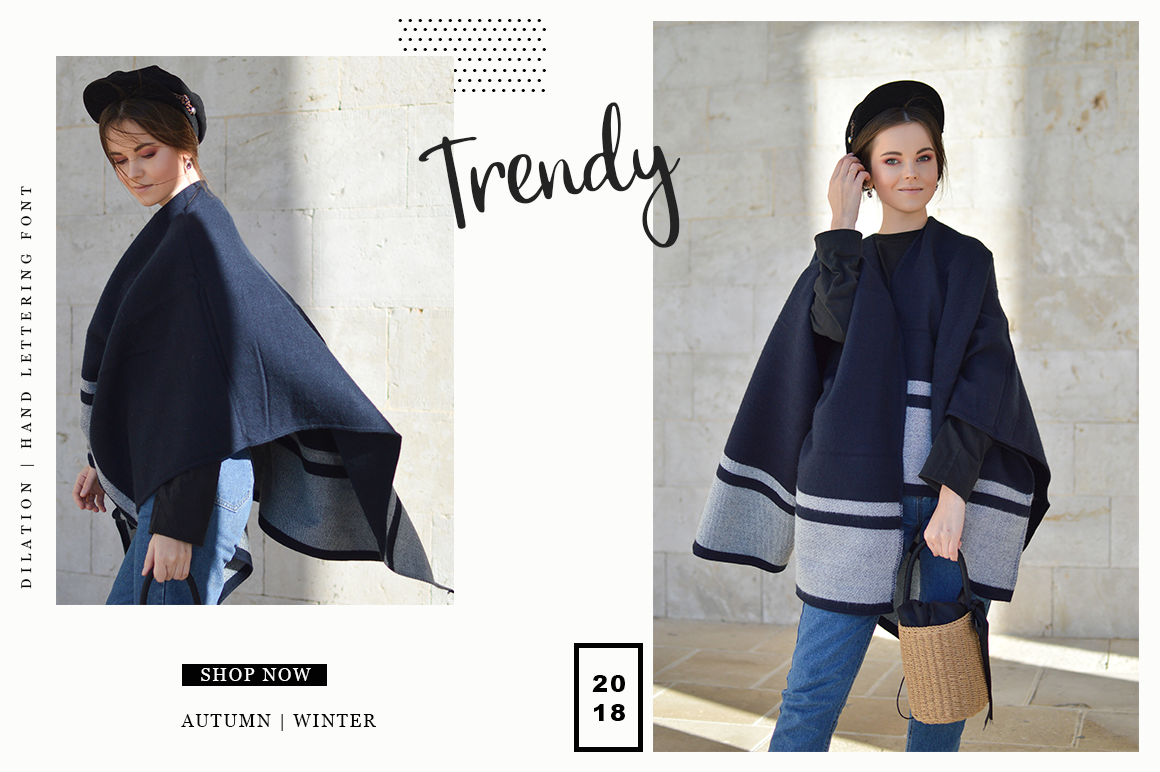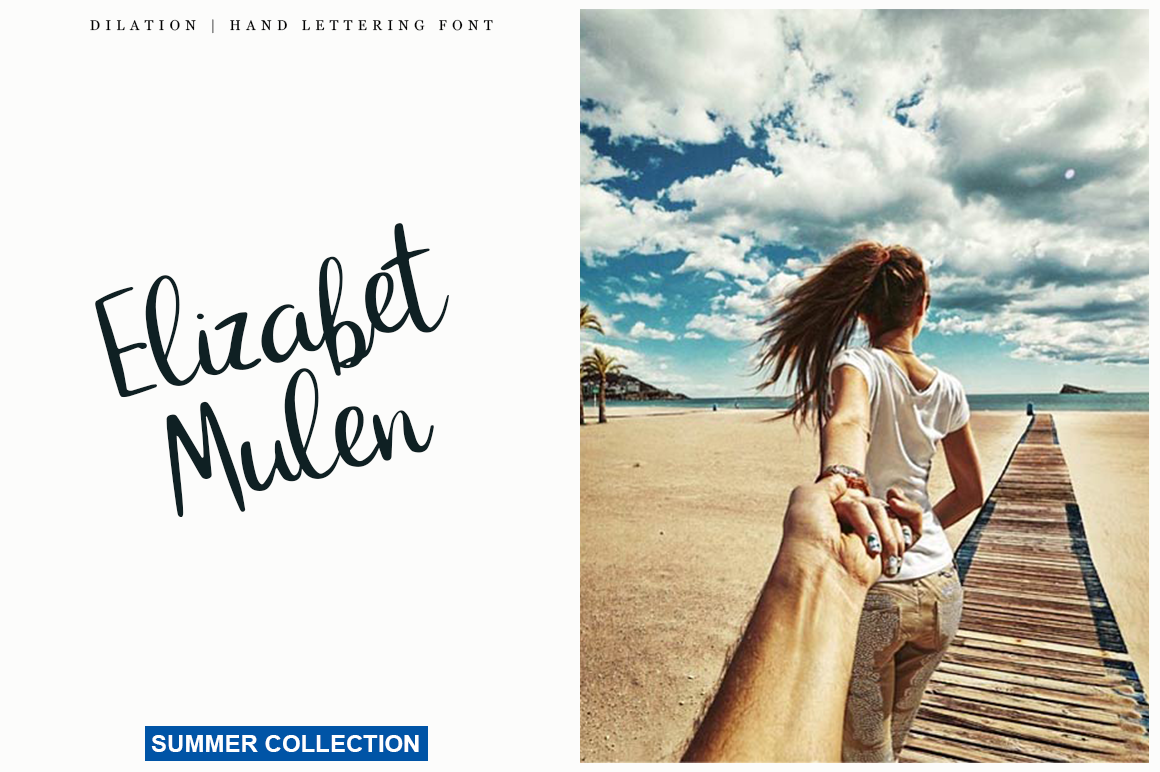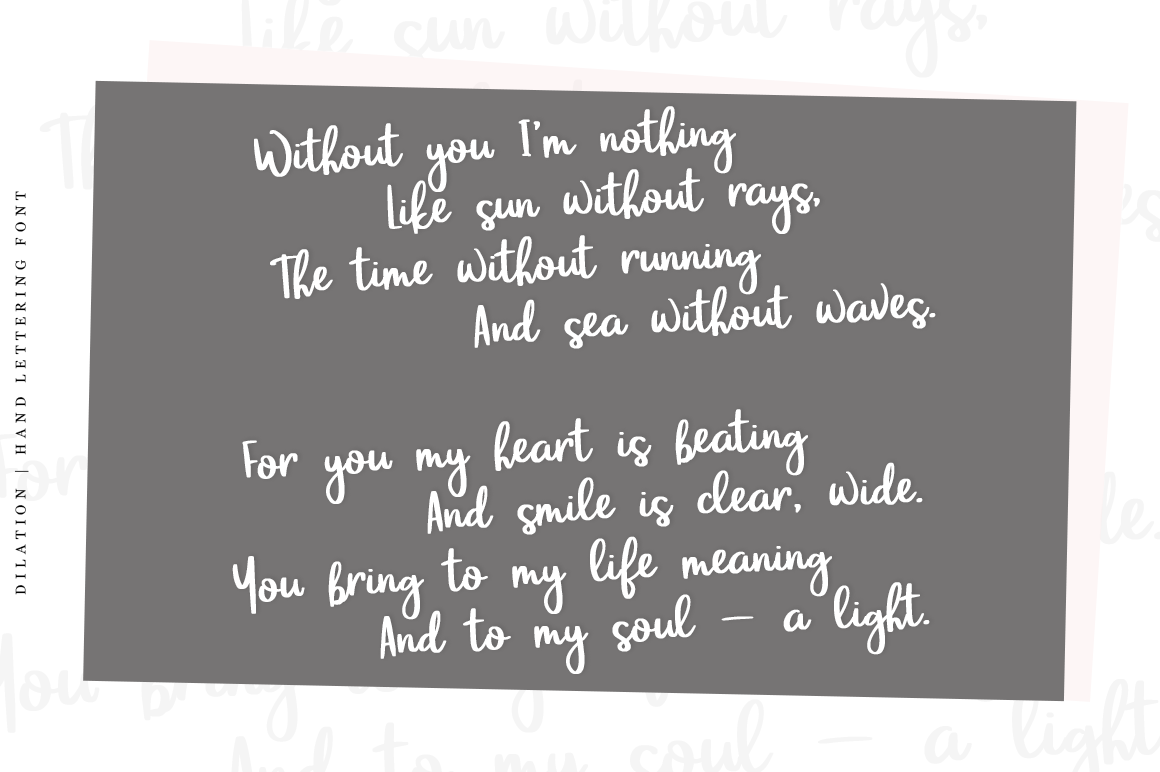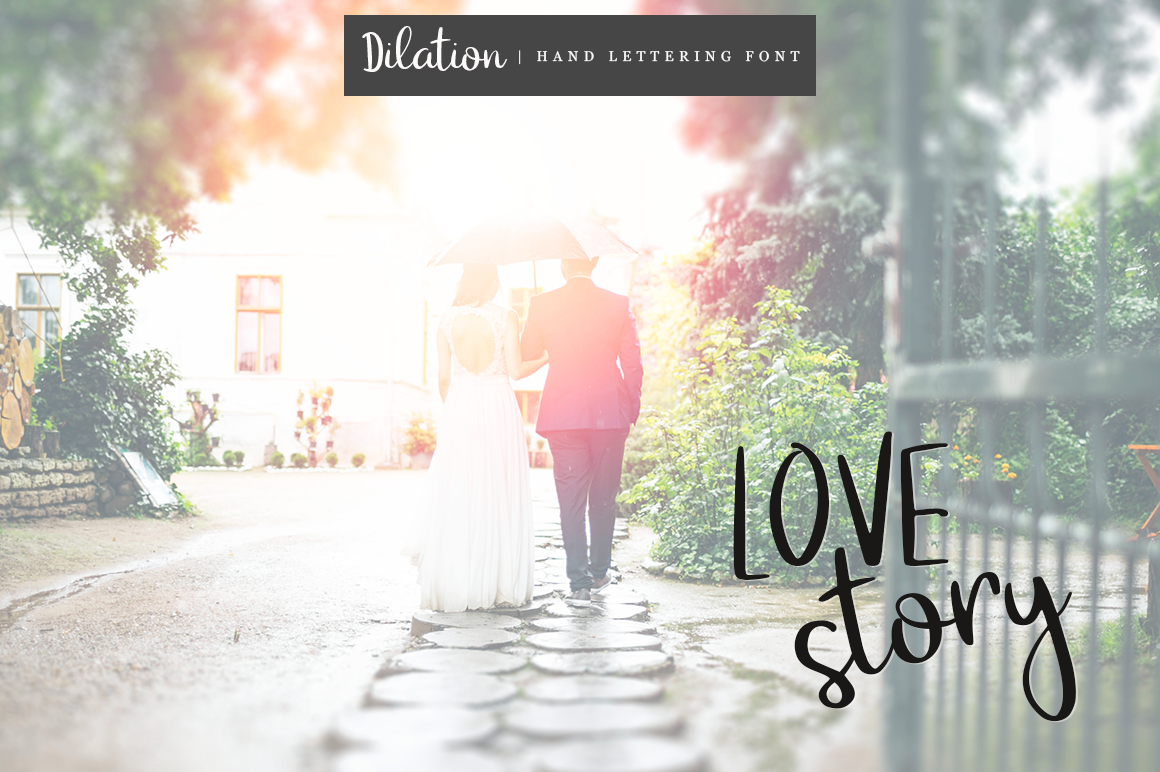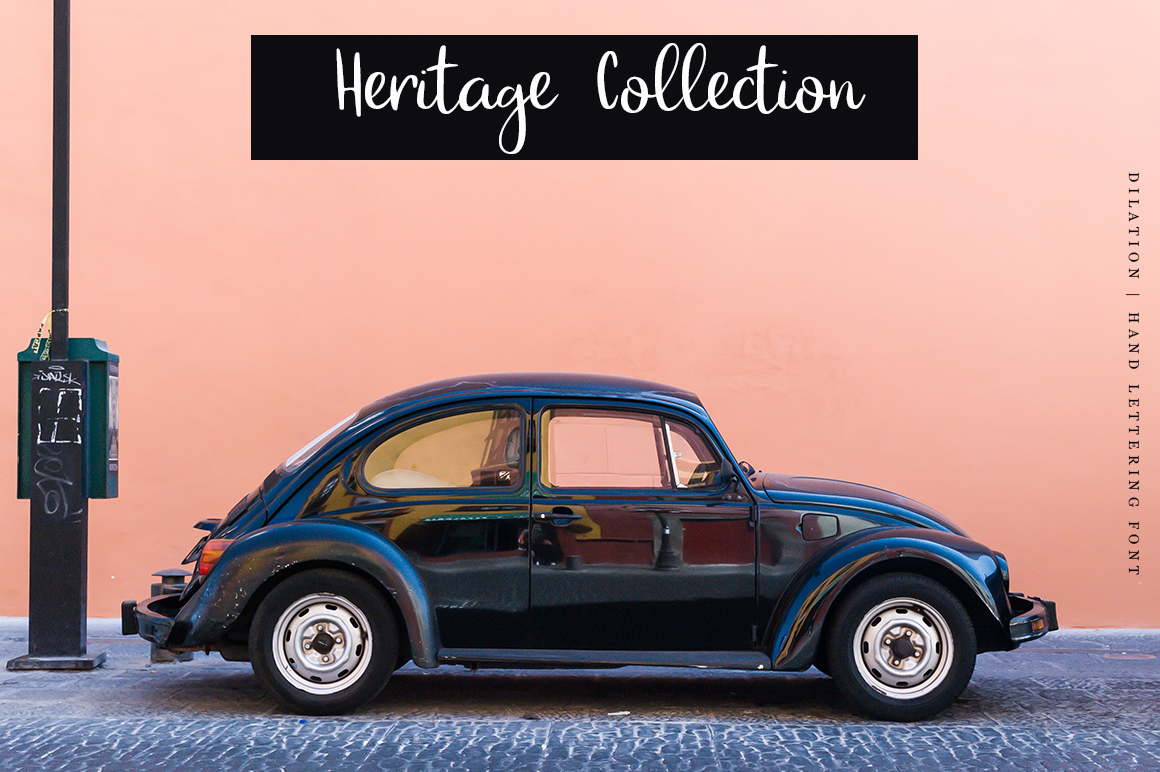
Dilation Font: Elevate Your Brand with a Fresh, Handmade Calligraphy Style
In the world of typography, a well-crafted font can make all the difference in creating a lasting impression. For designers and crafters looking to add a touch of trendiness to their projects, Dilation Font is an excellent choice. This fresh, handmade calligraphy font is ideal for branding and boasts a highly brandable appeal that works seamlessly across a wide range of styles.
The Unique Charm of Dilation Font
Dilation Font stands out from the crowd with its unique, handcrafted calligraphy style. Each letter is carefully designed to exude a sense of elegance and sophistication, making it perfect for projects that require a touch of refinement. The font’s handmade nature gives it a personal and organic feel, allowing designers to add a human touch to their creations.
Key Features of Dilation Font
- Handmade Calligraphy Style: Dilation Font is crafted with love and care, giving it a distinctive and authentic feel.
- Highly Brandable: The font’s unique style makes it an excellent choice for branding projects, helping to create a lasting impression on your audience.
- Versatile: Dilation Font works well across a wide range of styles, from modern and trendy to elegant and sophisticated.
- Easily Readable: Despite its decorative nature, Dilation Font remains easily readable, making it perfect for use in various design projects.
Uses of Dilation Font
Dilation Font’s versatility makes it suitable for a variety of design projects, including:
- Branding and Logos: Create a lasting impression with a unique and memorable logo that showcases your brand’s personality.
- Social Media Graphics: Add a touch of elegance to your social media posts and stories with Dilation Font.
- Packaging Design: Elevate your product packaging with a sophisticated and eye-catching font.
- Wedding and Event Design: Add a touch of romance and whimsy to your wedding or event designs with Dilation Font.
Tips for Using Dilation Font
To get the most out of Dilation Font, consider the following tips:
- Pair with a Simple Font: Balance out the decorative nature of Dilation Font by pairing it with a simple, easy-to-read font.
- Experiment with Colors: Dilation Font looks great in a variety of colors, so don’t be afraid to experiment and find the perfect hue for your project.
- Use for Headings and Titles: Dilation Font is perfect for use in headings and titles, adding a touch of elegance and sophistication to your design.
Dilation Font is a fresh and exciting addition to the world of typography. Its handmade calligraphy style, highly brandable appeal, and versatility make it an excellent choice for designers and crafters looking to elevate their projects. Whether you’re working on a branding project, social media graphics, or packaging design, Dilation Font is sure to make a lasting impression.